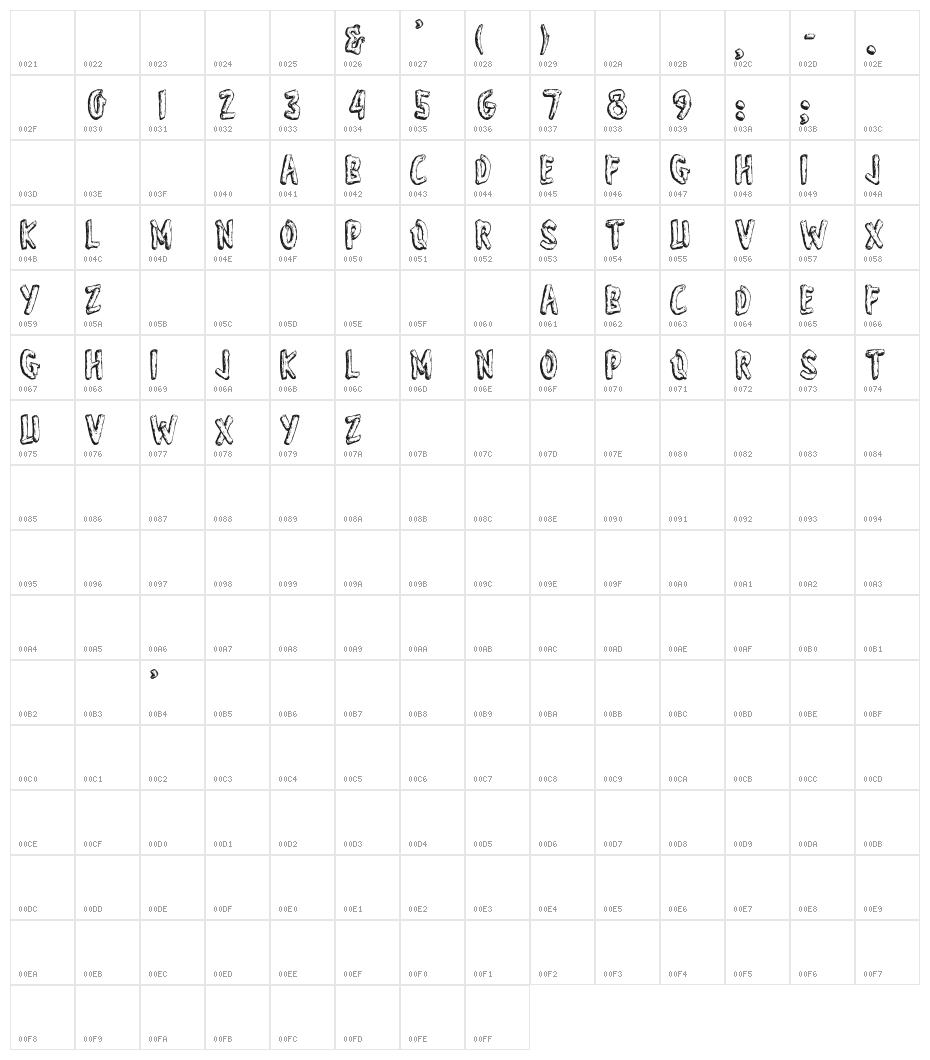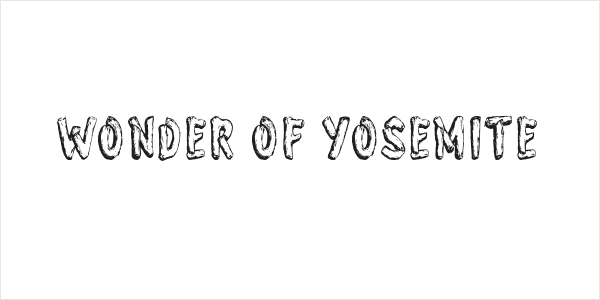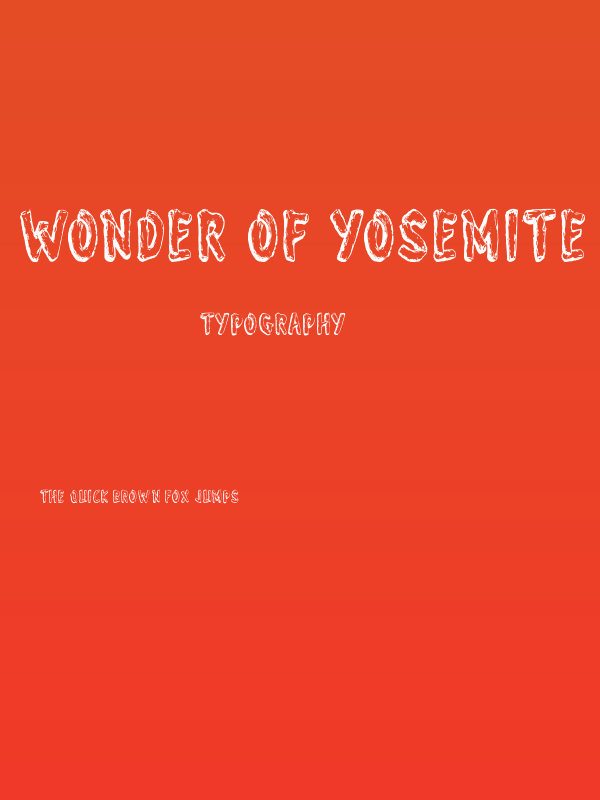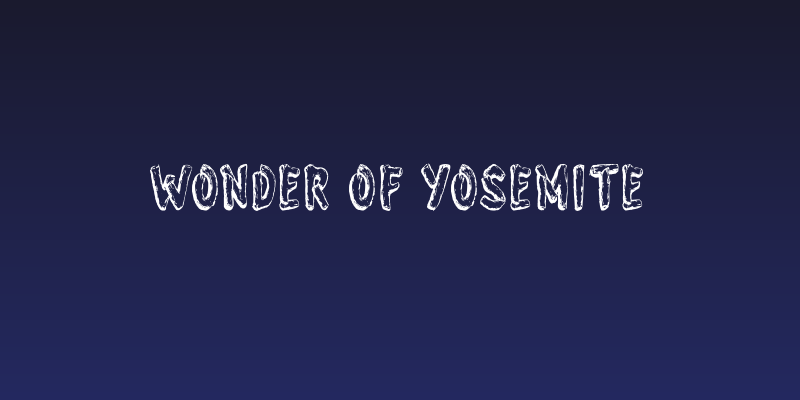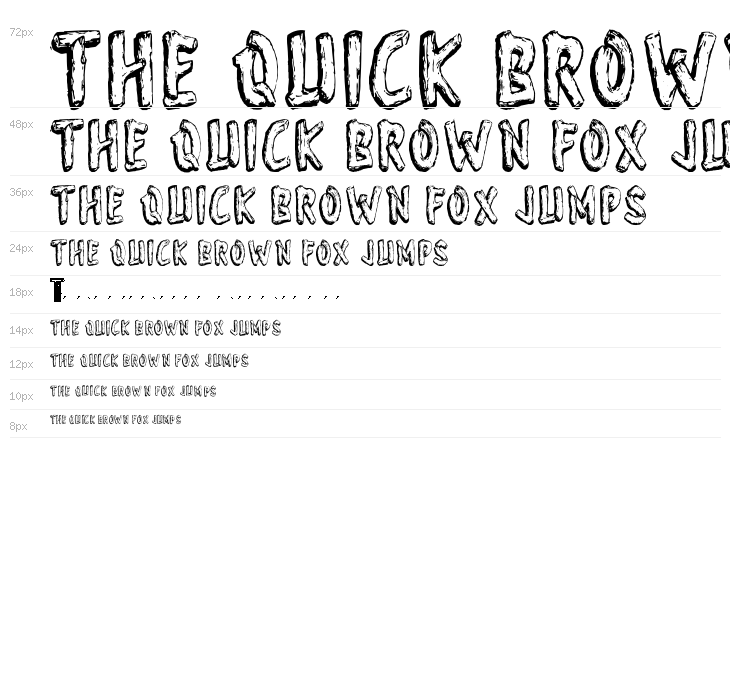
Wonder of Yosemite Font
Wonder of Yosemite Description
This font features a rugged, hand-drawn style that evokes a sense of adventure and the great outdoors. Each character is uniquely textured, giving it a distressed and organic appearance. The uppercase and lowercase letters maintain a consistent style, with bold strokes and rough edges that suggest a natural, unrefined quality. The numbers and special characters follow the same aesthetic, providing a cohesive look across all glyphs. This font is ideal for projects that aim to capture a rustic or adventurous theme, such as outdoor branding, travel blogs, or nature-inspired designs.
| Overall Style | Rustic, Adventurous |
| Proposed Projects | Perfect for outdoor branding, travel blogs, nature-inspired designs, and adventure-themed projects. |